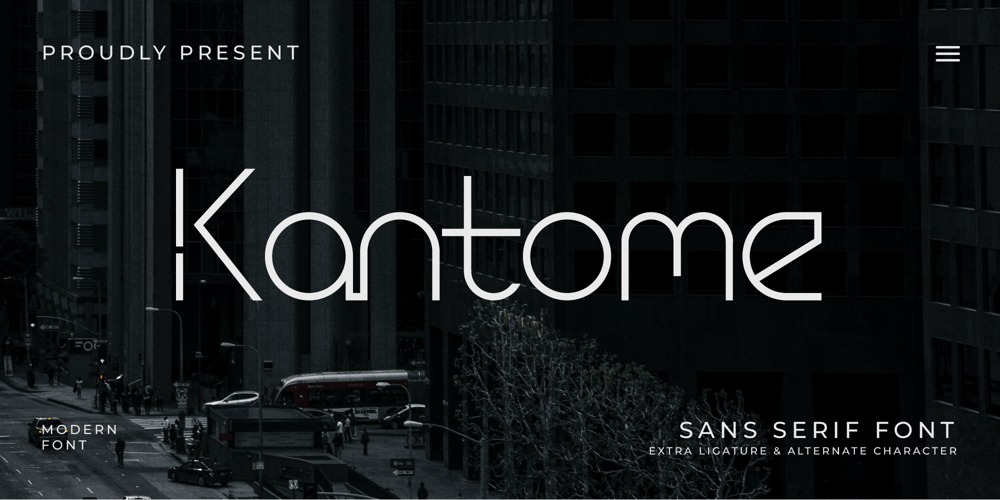
Kantome Font Family was designed by Adi Nurjaman and published by Yukfont. Kantome contains 2 styles and family package options. Introducing the new font ‘Kantome’, a futuristic font perfect for robotics, space, future technology, and innovative products!What you get:Kantome San serif font includes Regular and Italic Styles. Also comes with Alternates and ligatures.Supports Multilanguage (Western European Latin), complete with numbers and punctuation.And supports various digital software.